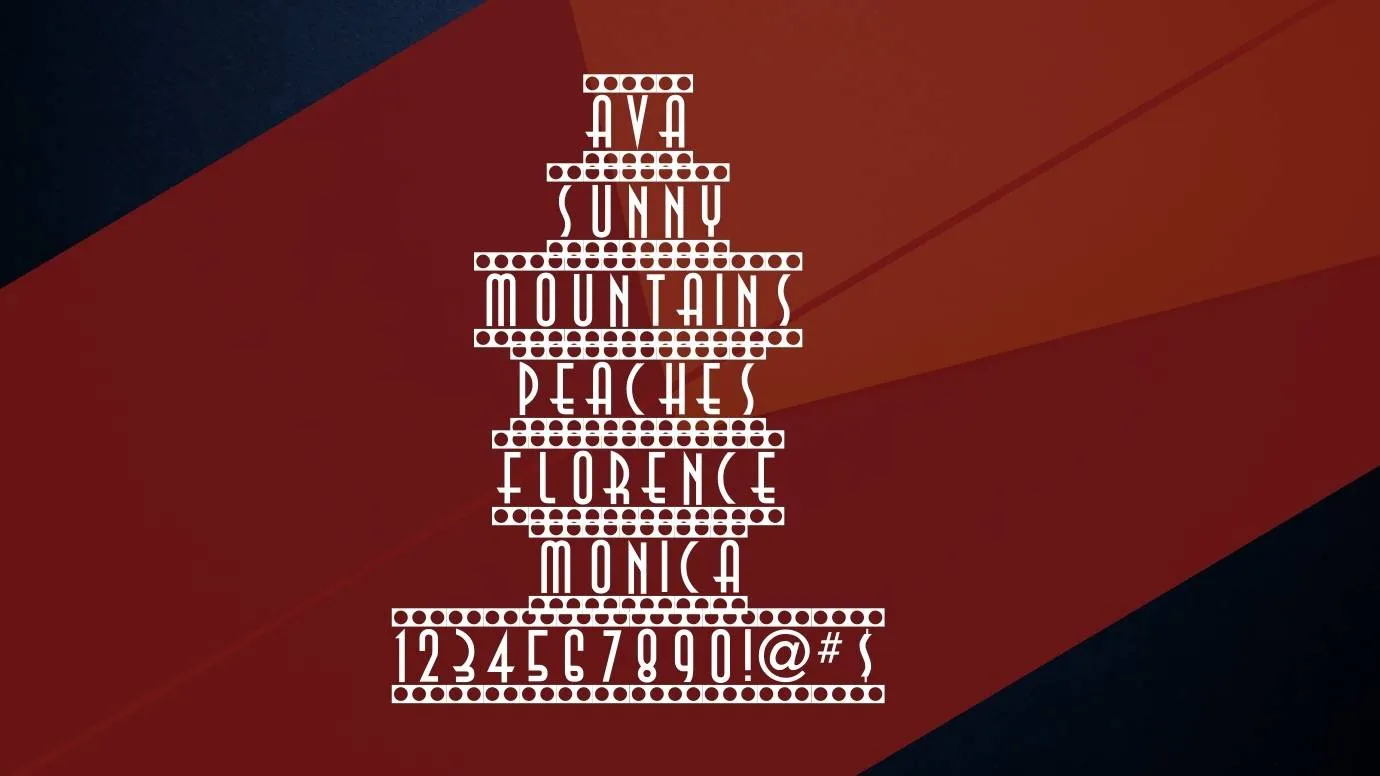
Showtime Font is a fancy typeface with a unique design. It is perfect for branding, advertising, and other creative projects. An American typeface designer designs this typeface. This is an amazing and attractive typeface.
The showtime includes four styles: regular, medium, bold, and black with matching italics. The Showtime Font is available for both personal and commercial use. This typeface can be used in the making of posters, banners, invitation cards, fashion designs, and shop names.
Showtime Font has a complete set of 96 characters including uppercase, lowercase, numbers, punctuation, and symbols. It also contains a set of 64 glyphs. This typeface also supports multiple languages. This typeface is similar to the londrina outline font.
Designer of Showtime Font
This attractive and stunning typeface is created by American typeface designer Randy Ford for the foundry RAB Web Designs in 1998.
This font style is designed with a unique and regular style. This single attractive style is a mixture of multiple characteristics, containing upper- and lower-case letters, numbers, punctuations, symbols, special characters, glyphs, and different language support.
| Style | Comic |
| Designer | Randy Ford |
| Foundry | RAB Web Designs |
Yes, this is a good typeface. This typeface is good for comic book titles, covers, and headings.